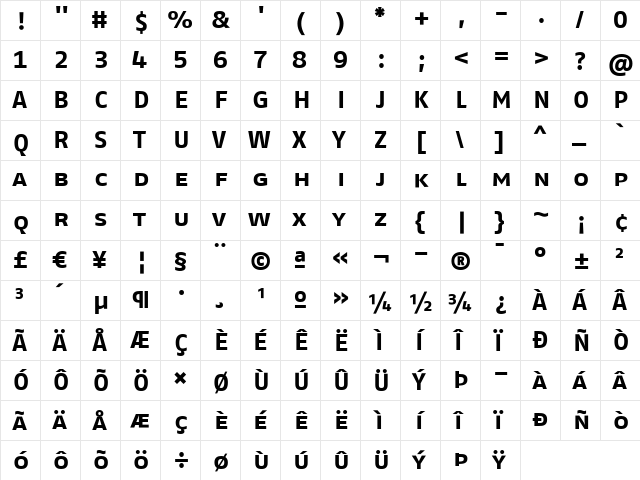
FagoExTf Bold
Design Context for FagoExTf Typeface
FagoExTf offers clean, dependable letterforms without strong stylistic allegiance, making it a practical choice for designers who need flexibility. Its bold stroke weight gives it real presence on the page.